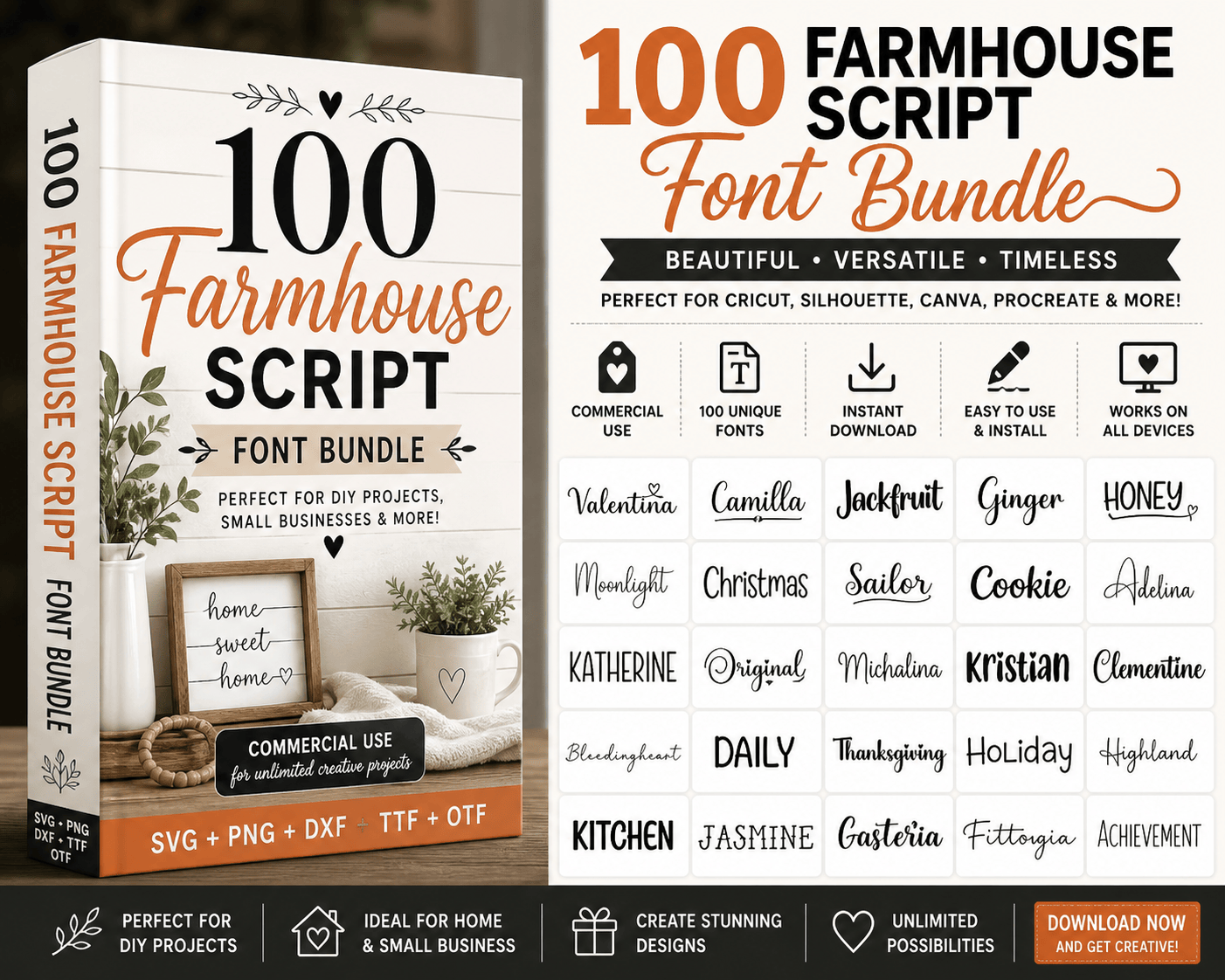
Transform your creative projects with our stunning 100 Farmhouse Script Font Bundle, designed to bring rustic charm and elegant sophistication to every design you create. Whether you’re working in Canva, Procreate, or your favorite design software, this comprehensive collection offers endless typographic possibilities for digital and print projects alike.
Complete Font Collection for Creative Freedom
This farmhouse script font bundle brings together 100 beautifully crafted typefaces that capture the warmth and character of farmhouse aesthetic design. From flowing cursive styles to bold statement scripts, each font has been carefully curated to provide versatility across multiple creative platforms. You’ll discover flowing botanical scripts, cozy serif combinations, and decorative farmhouse-inspired letterforms that work perfectly together or stand alone as statement pieces.
Every font in this collection has been optimized for crisp rendering in Canva and Procreate, ensuring your designs look professional whether you’re creating social media graphics, digital art, labels, signage, or printed materials. The bundle includes both uppercase and lowercase variations, ensuring you have complete flexibility in your typography choices.
The bundle’s versatility extends across countless projects: design rustic wedding materials, create cozy kitchen decor graphics, develop farmhouse-themed social media content, or design personalized gifts. Each font works beautifully as a primary typeface or in combination with others from the collection, giving you maximum creative control and design cohesion.
Whether you’re a seasoned designer seeking fresh typography options or a creative enthusiast just beginning your design journey, this farmhouse script font collection offers professional-grade tools at your fingertips. Elevate your visual content and bring your creative vision to life with fonts that inspire and impress.